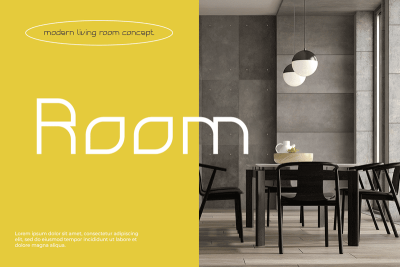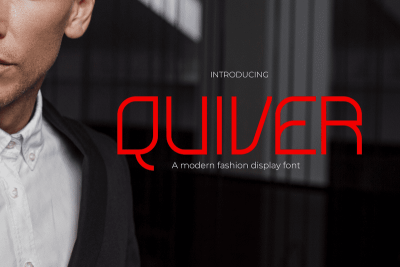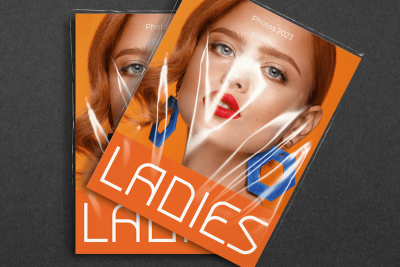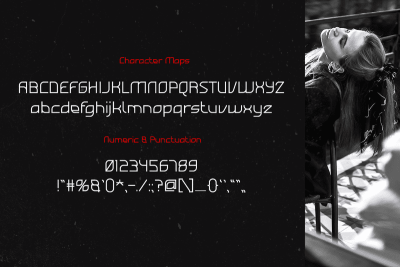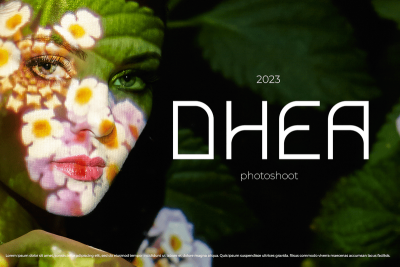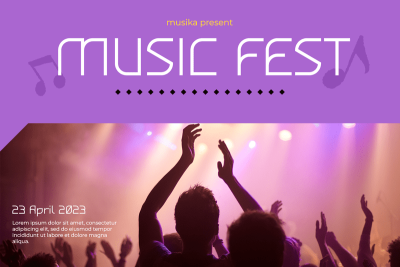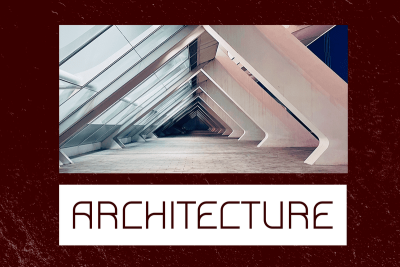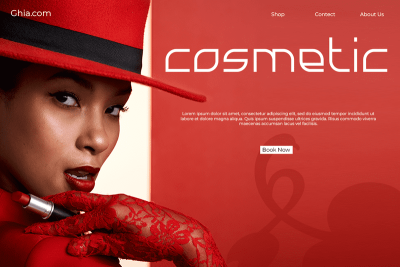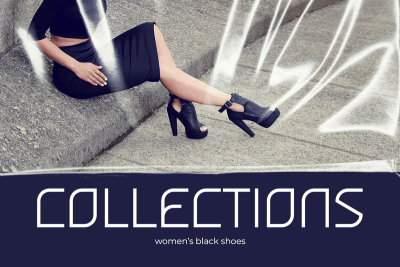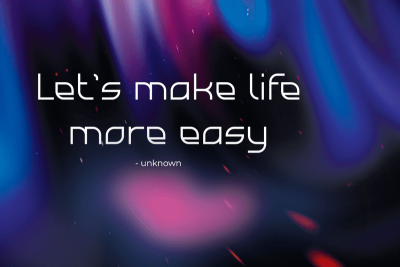
Instagram Font Quiver is a sleek and modern display font. It is specifically designed to captivate attention in digital and print mediums. With its futuristic and minimalist appeal, this font not only exudes sophistication but also boldness. Therefore, it is perfect for creating compelling visual statements. The sharp angles and clean curves of Quiver create a unique and elegant aesthetic. As a result, it conveys innovation and forward-thinking style.
Moreover, its geometric structure ensures excellent legibility while adding a creative edge to designs. Quiver is especially ideal for fashion-forward projects, luxury branding, and social media visuals. It not only stands out in bold headlines but also complements smaller text elements seamlessly. Furthermore, the high-end feel aligns perfectly with Instagram posts, stories, and ads. Whether you are designing a striking logo, an engaging banner, or a magazine cover, Quiver guarantees a premium and polished look.
Who Should Use Instagram Font Quiver?
Quiver is perfect for creative professionals, fashion brands, and influencers. It works well for anyone who values high-impact visual design. For instance, graphic designers can use Quiver for projects involving fashion, beauty, or tech brands. It delivers a modern touch that, in turn, elevates design quality. Additionally, social media marketers can rely on Quiver for Instagram visuals. This ensures posts stand out in a crowded feed.
Content creators in fashion, lifestyle, or tech niches will also benefit from its polished style. Not only does it enhance personal branding, but it also strengthens visual appeal. Likewise, boutique agencies and editorial teams can use it for cutting-edge campaigns. Quiver is also an excellent choice for advertising professionals looking to create a strong identity.
In conclusion, Quiver is more than just a font. It is a statement of confidence, style, and creativity. Whether you are using it for Instagram stories, luxury packaging, or high-fashion editorials, Quiver ensures your message is delivered with elegance and impact.